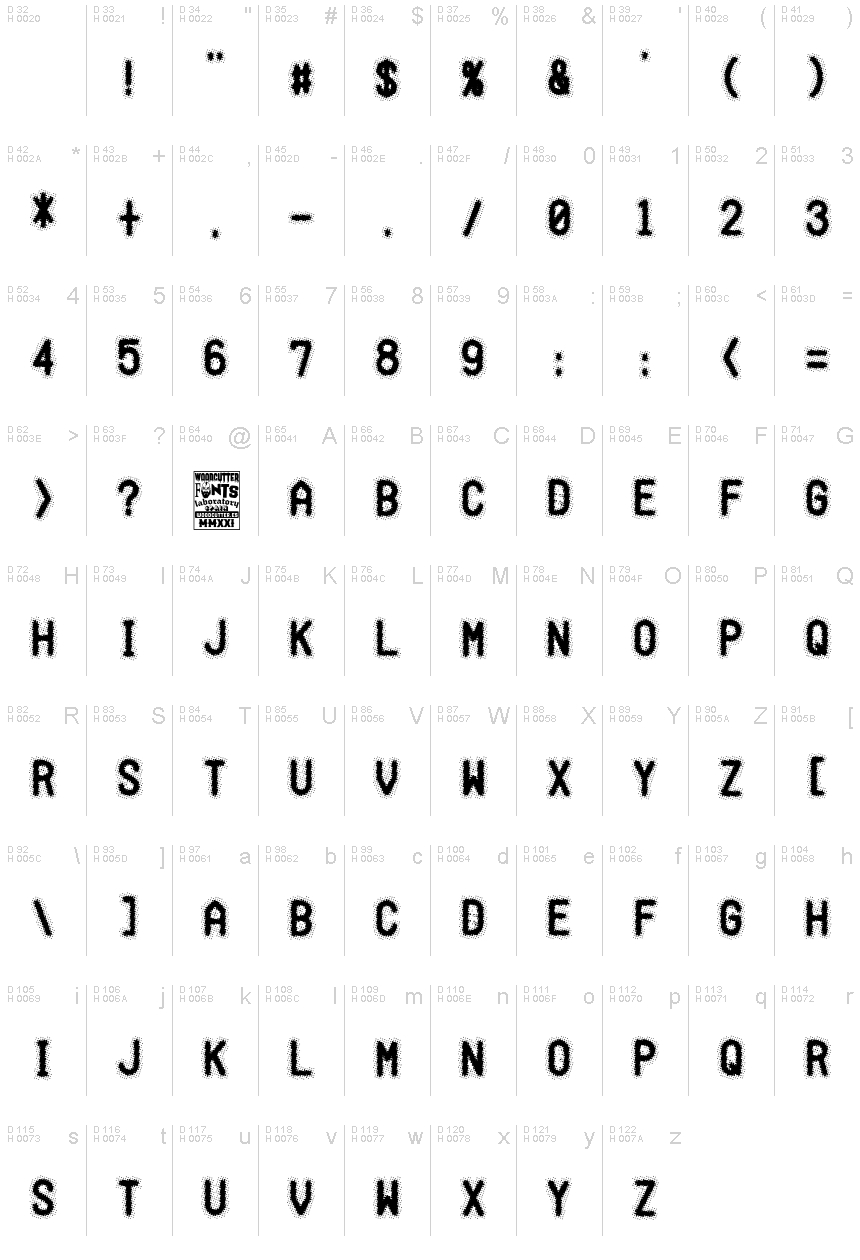
Tragic Blur
Tragic Blur font, crafted by Woodcutter, captivates with its distinct eroded style, evoking a sense of nostalgia and raw emotion. The dramatic distortion gives it an almost tactile quality, making each letter feel uniquely alive as if they’re fading away into the background.
Its bold presence commands attention while maintaining an air of mystery. This font is perfectly suited for contexts that demand strong visual impact—think posters for music festivals or eye-catching headlines in graphic novels. Its expressive character not only conveys emotion but invites viewers to explore deeper narratives, making it an ideal choice for creative projects that celebrate individuality and artistic flair. Tragic Blur promises to turn any design into a statement piece, pushing the boundaries of traditional typography.